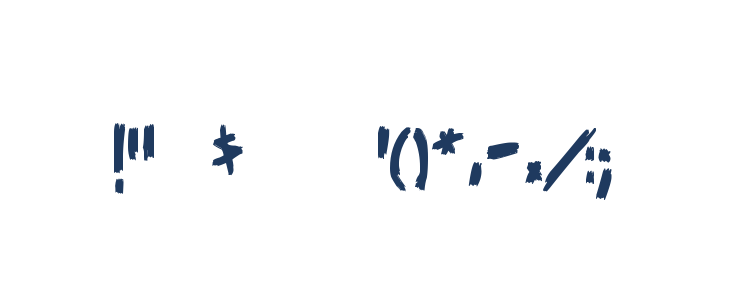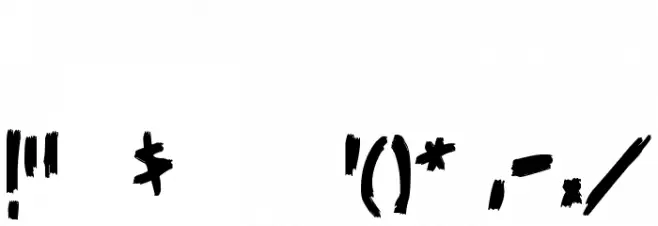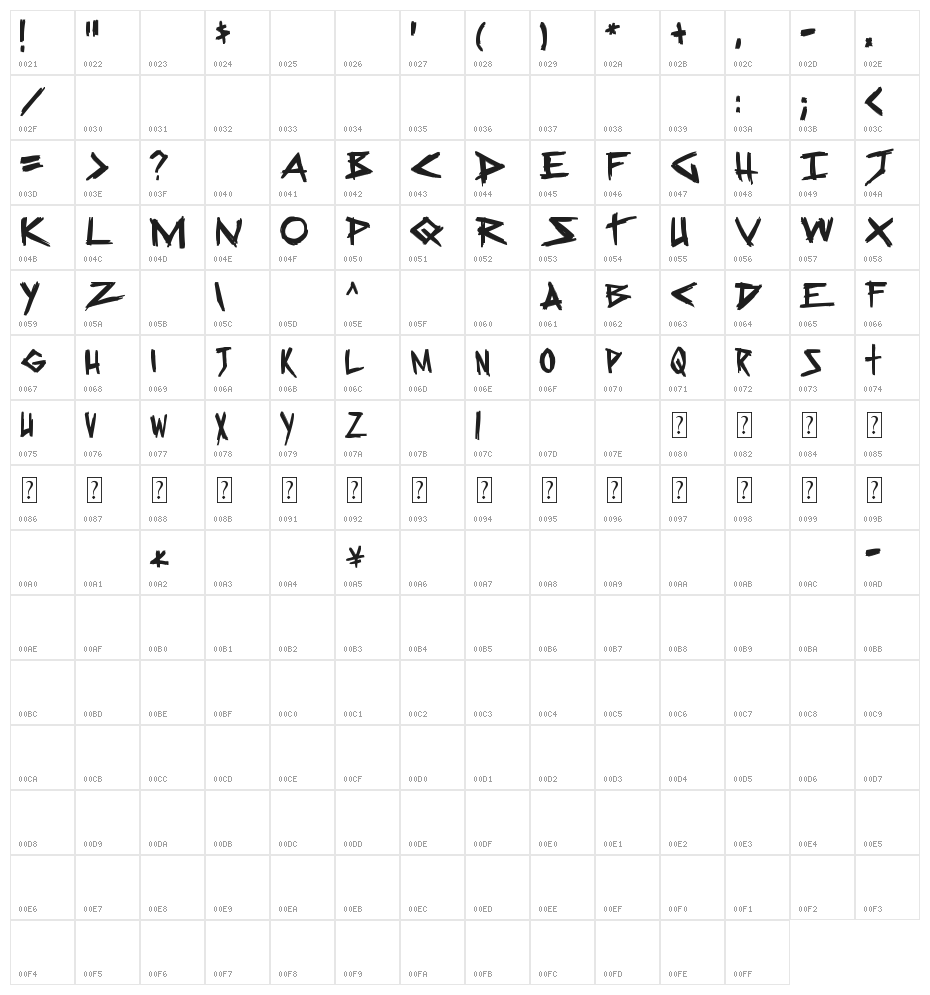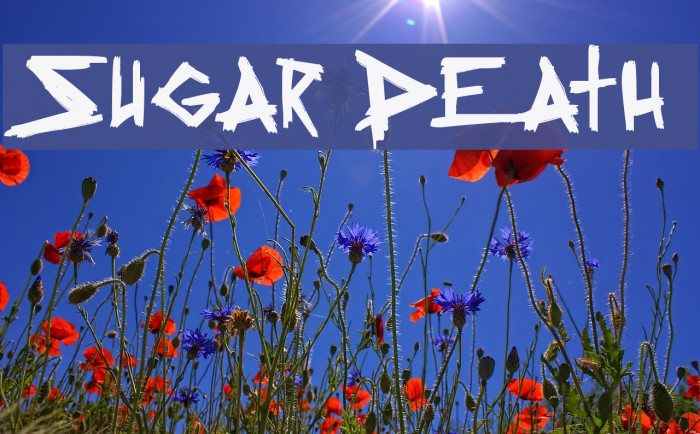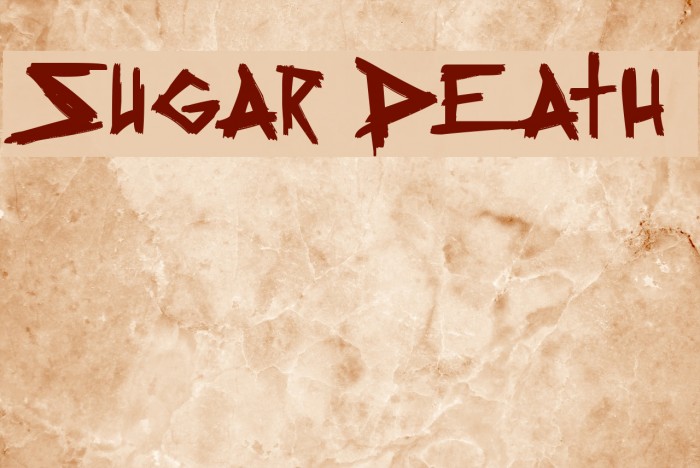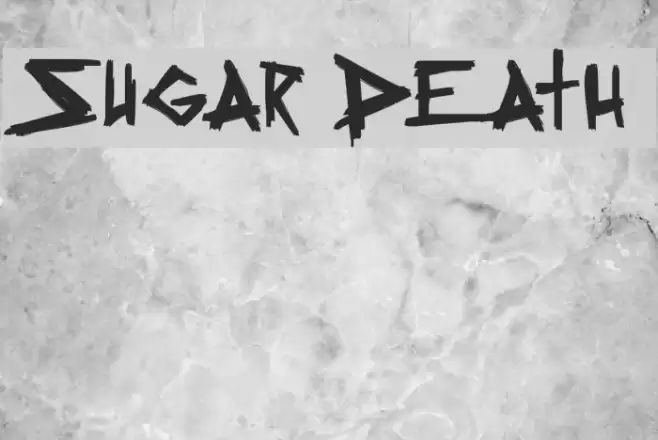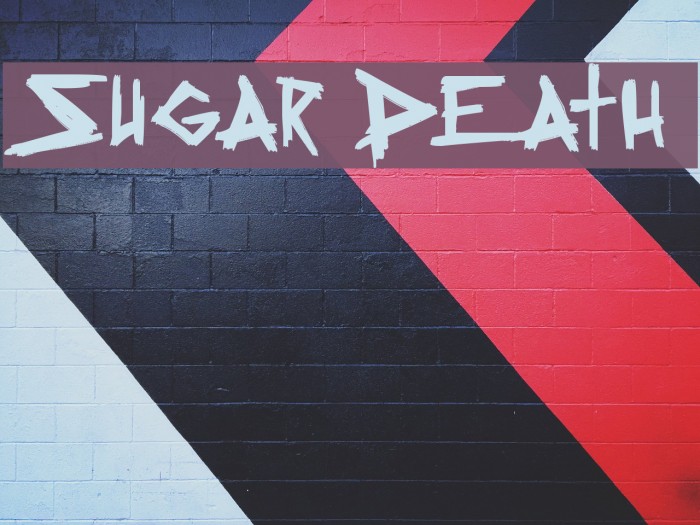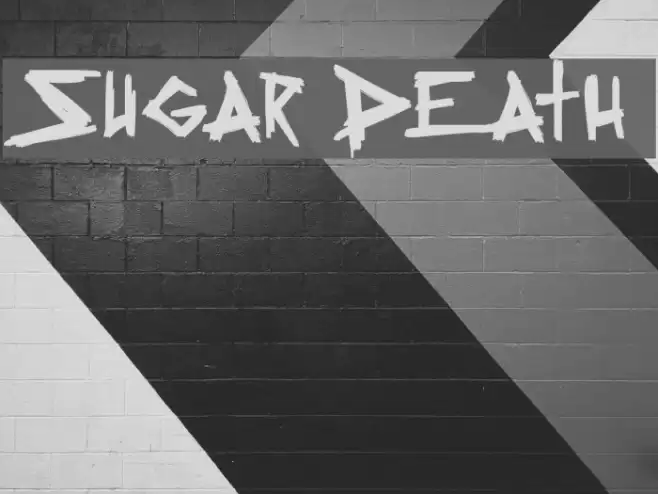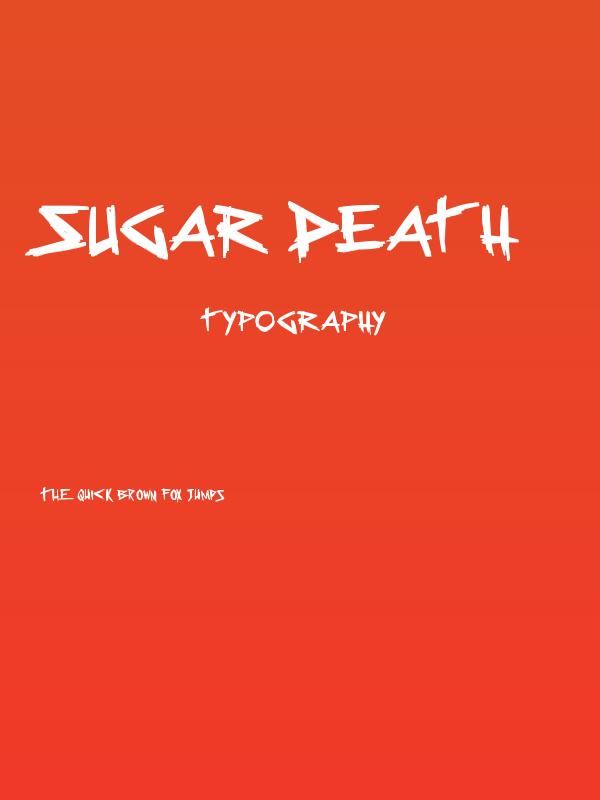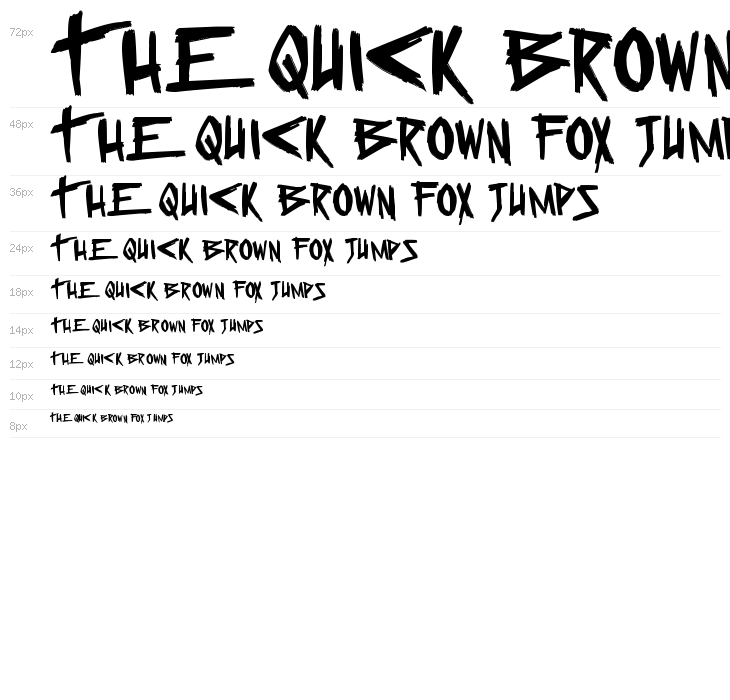
Sugar Death 2 Font
Sugar Death 2 Description
This font features a bold and edgy design with sharp, angular strokes that give it a rebellious and energetic feel. The letters are irregular and jagged, resembling graffiti or a hand-drawn style, which adds a sense of dynamism and movement. The uppercase and lowercase letters maintain a consistent style, with exaggerated angles and a rough texture that suggests a sense of urgency or intensity. The numbers and special characters follow the same aesthetic, making the font cohesive and visually striking. Its unique style makes it stand out, perfect for projects that require a bold statement.
| Overall Style | Modern, Edgy |
| Proposed Projects | Ideal for music album covers, streetwear branding, event posters, and edgy graphic design projects. |